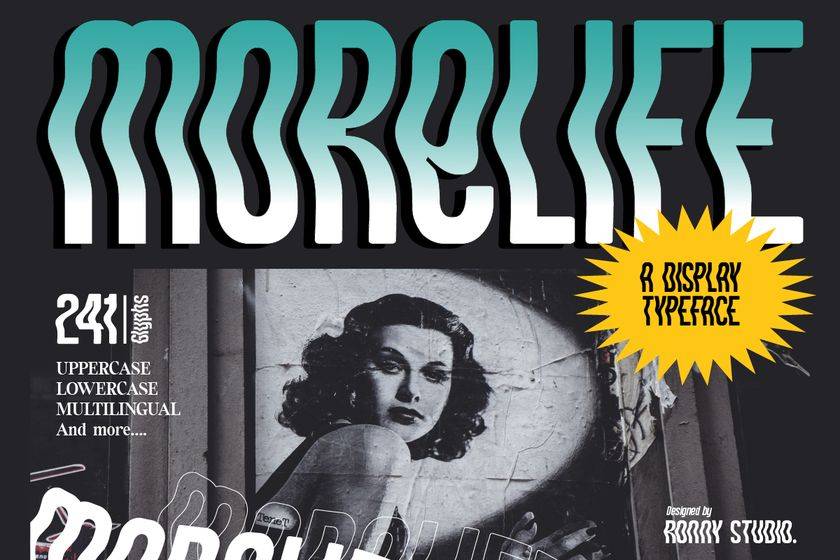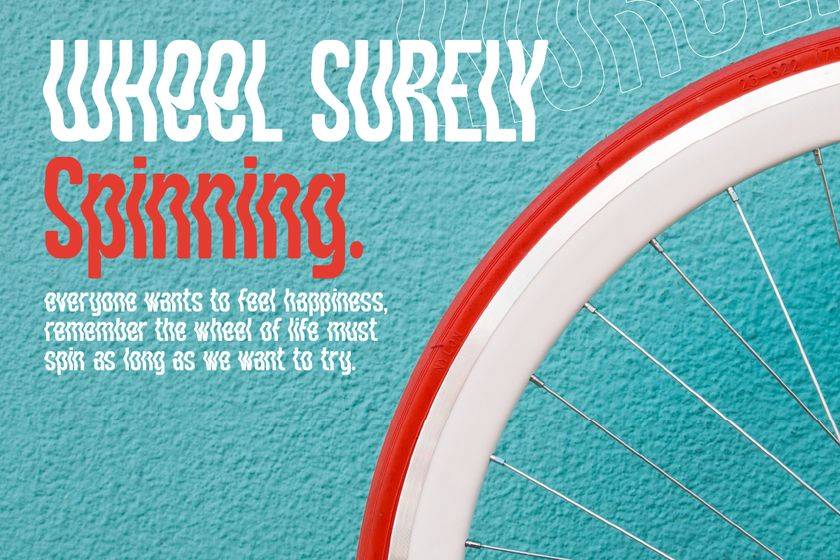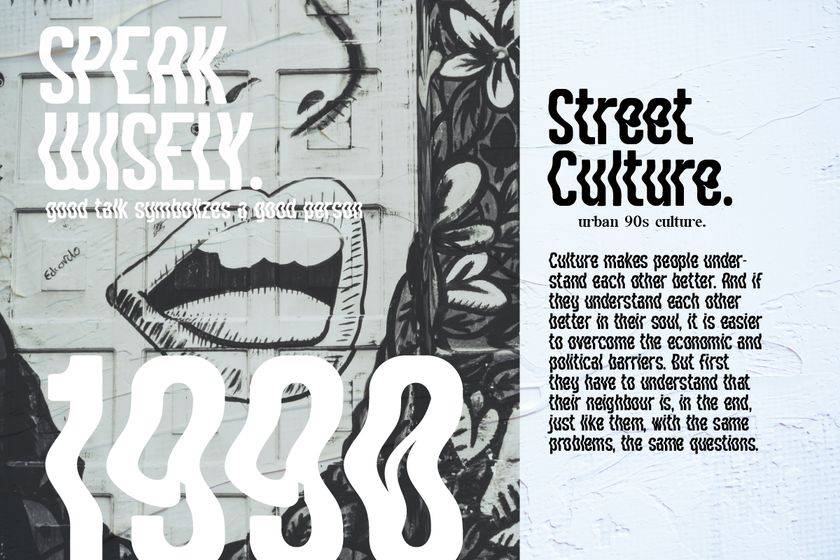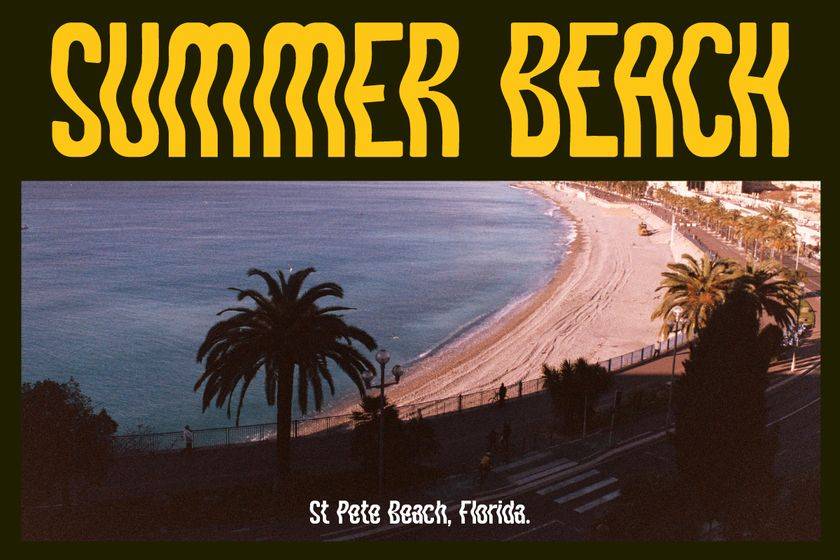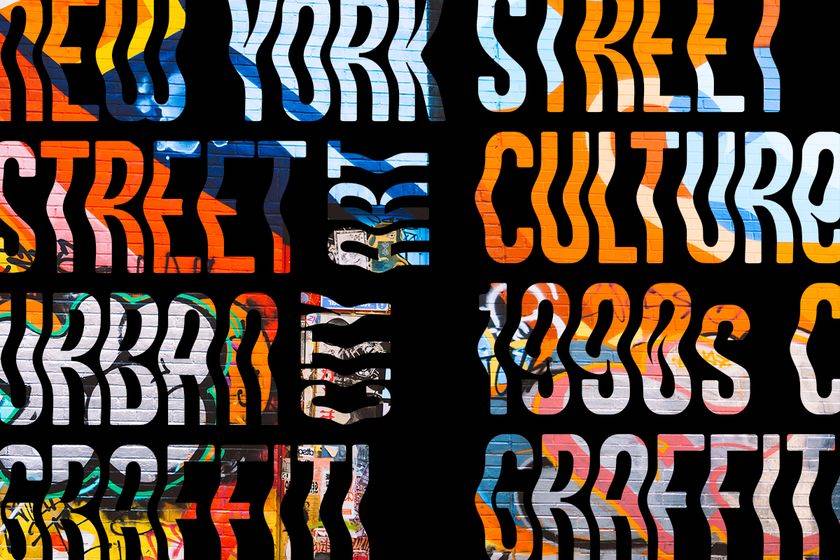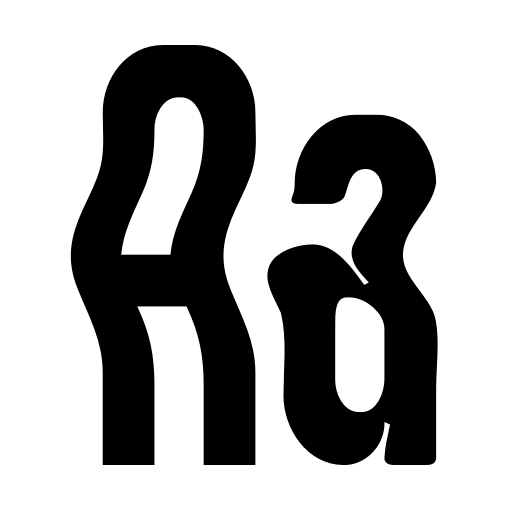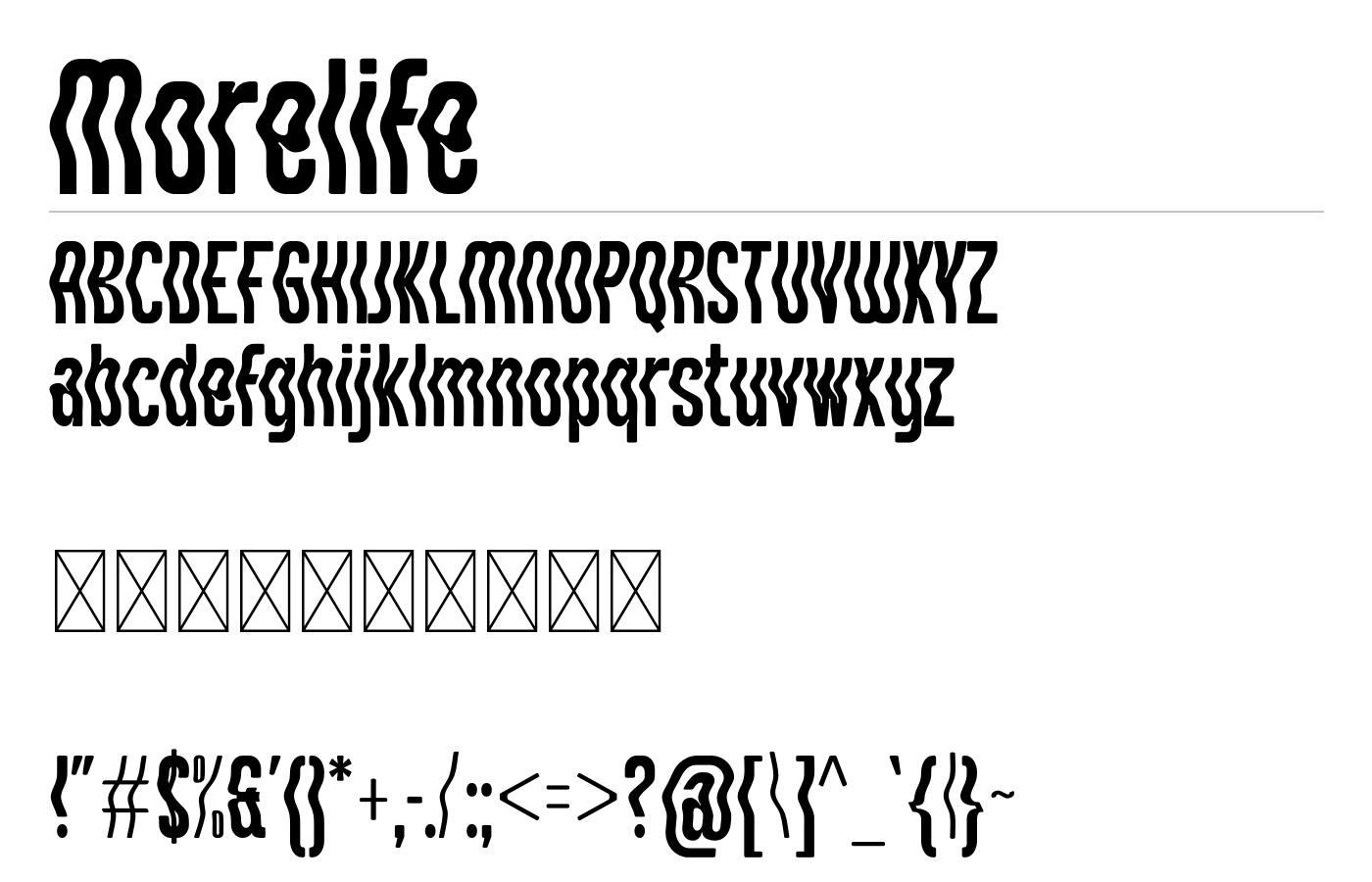
Morelife is a bold, condensed sans serif font with a strong vertical emphasis and a unique wavy stroke texture that adds a dynamic, slightly retro feel. Its tall x-height and tight letter spacing give it a striking presence, making it ideal for eye-catching headlines, branding, and creative projects that want to stand out with a modern yet distinctive personality.
Morelife Font
About Morelife Font
| Font family | Morelife Font |
| Release date | 2022-07-04 |
| Designer | Rony Rizki Jaya |